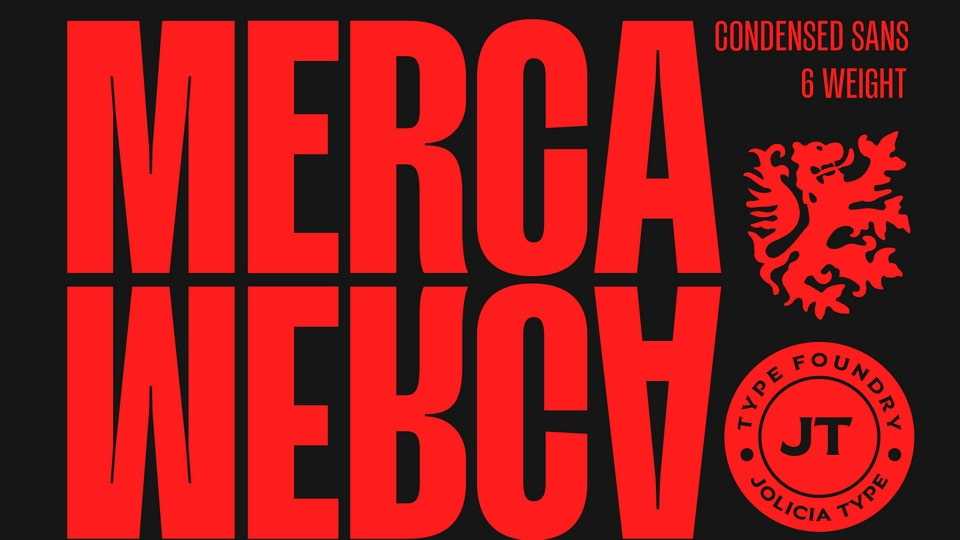
Download Merca font, a sharply condensed display typeface crafted for bold visual impact and assertive headline presence. With narrow proportions, tall structure, and minimal contrast.